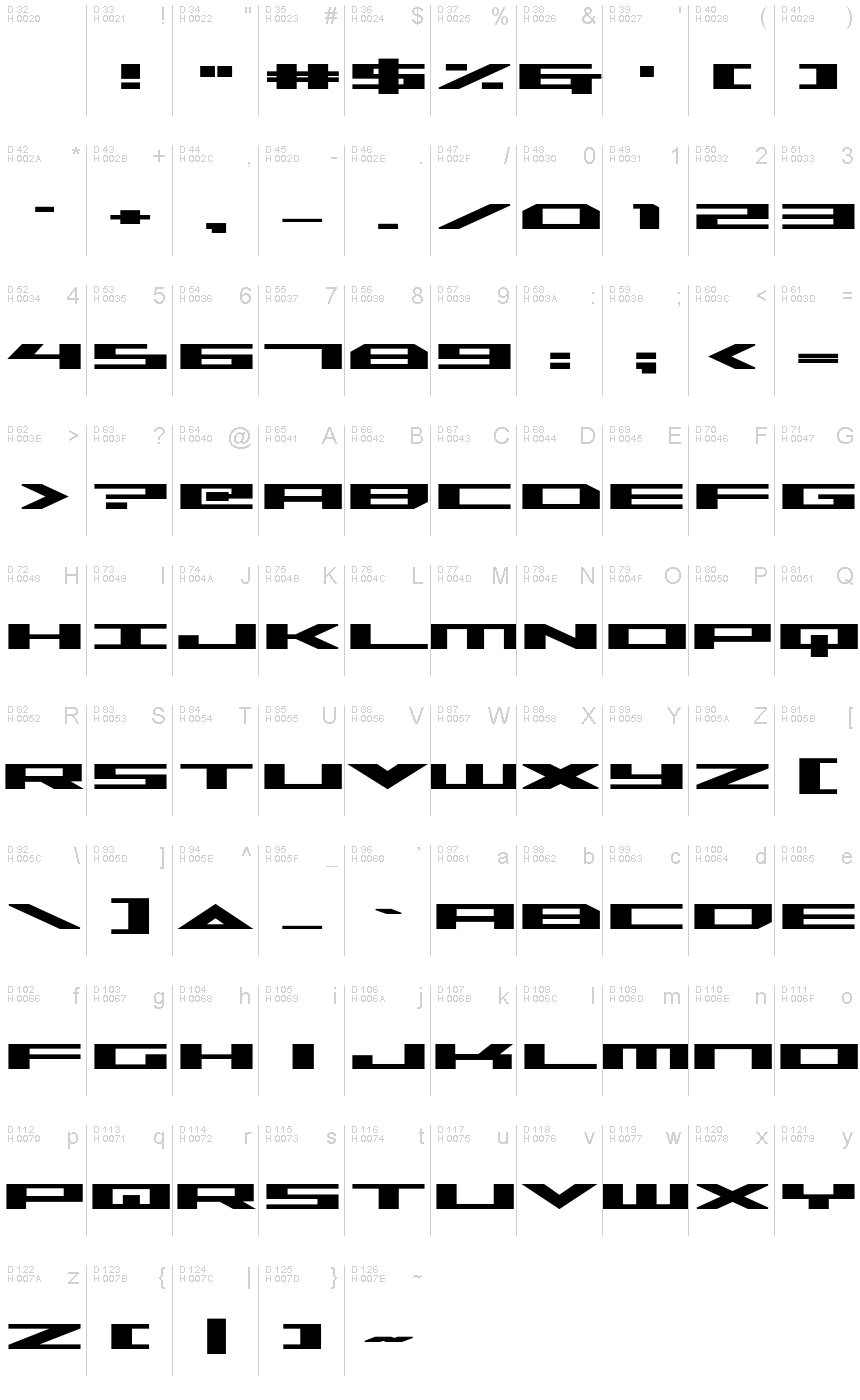
Trireme Expanded Bold by Daniel Zadorozny of Iconian Fonts is a free futuristic display font with an exceptionally wide, low profile. Heavy horizontal strokes dominate the design, interrupted by narrow slots and sharply squared openings. The overall silhouette feels engineered, forceful, and unusually panoramic.
Science fiction and mechanical themes suit its panel-like lettering, making it useful for game graphics, event posters, and electronic music packaging. Circuits can turn letters into spacecraft interface graphics.
Trireme Expanded Bold